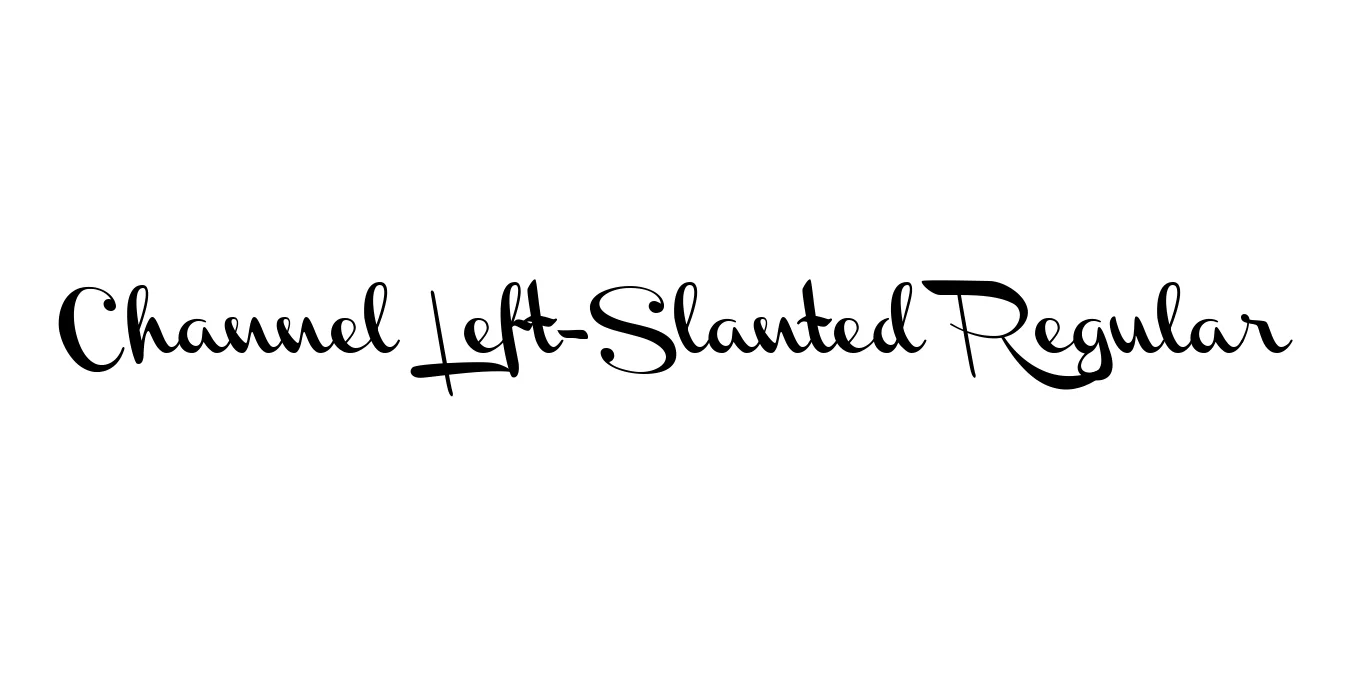
Channel Left-Slanted Regular
Channel Left-Slanted Regular is a unique variation of the popular Channel typeface created by the prolific Swedish type designer Mans Greback. This font family is widely recognized for its sleek, cursive, and script-like appearance that mimics high-end branding and broadcast media aesthetics. The left-slanted version provides a distinct counter-italic style, offering a rebellious or unconventional look compared to traditional right-leaning scripts, making it ideal for experimental graphic design and expressive typography.
Developed as part of a larger family that includes slanted, upright, and various weight versions, this specific style focuses on fluidity and motion. Its sharp strokes and connected characters evoke a sense of speed and modern sophistication. Whether used for television graphics, logo design, or editorial headlines, Channel Left-Slanted Regular stands out as a versatile script that balances elegance with a bold, contemporary edge.
Channel Left-Slanted Regular Best Uses
Perfect for creating unique, high-end brand identities that require a distinctive script look.
Great for eye-catching quotes and headlines on platforms like Instagram and Pinterest.
Commonly used for television show titles and motion graphics due to its sleek appearance.
Adds a sophisticated and modern touch to luxury product packaging.